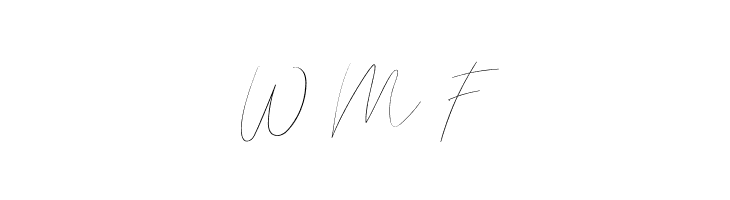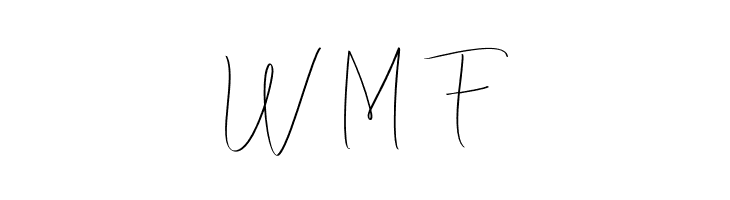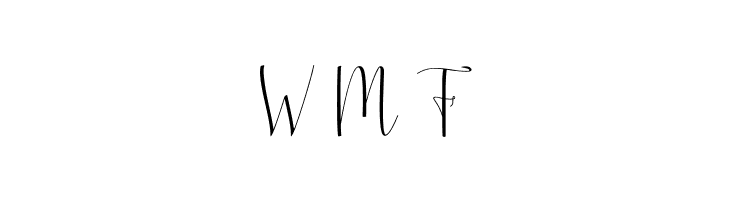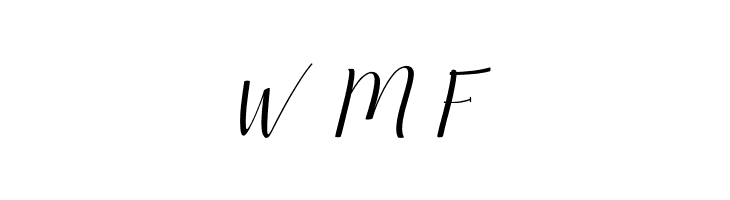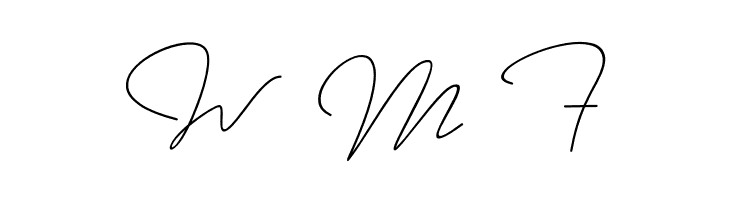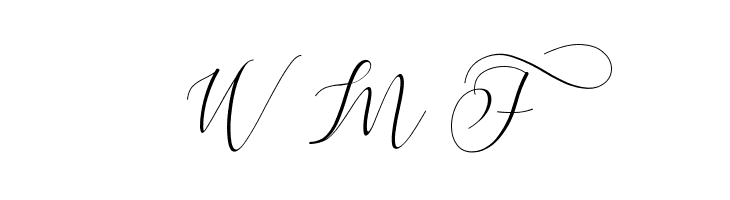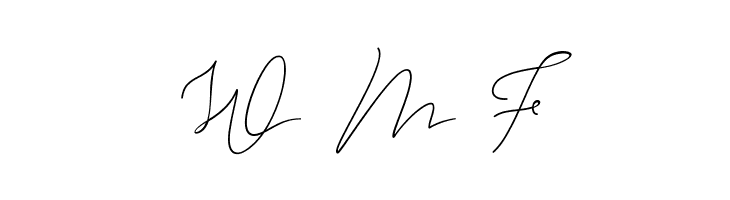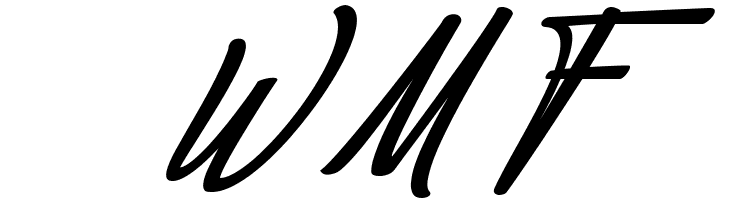
A delicate, elegant handwritten font with thin, flowing lines and graceful curves.
An elegant script font with flowing, cursive style and graceful loops.
An elegant and flowing script font with graceful curves and fluid strokes.
A graceful and flowing script font with elegant curves and loops.
An elegant, flowing script font with graceful curves and fluid strokes.
An elegant, slanted calligraphy font with graceful lines and artistic flourishes.
A graceful and elegant script font with flowing, cursive lines.
An elegant, flowing script font with graceful curves and fluid strokes.
An elegant, cursive font with fluid, graceful strokes.
A flowing, elegant cursive font with graceful loops and smooth connections.
An elegant, flowing script font with thin, elongated letterforms and graceful curves.
An elegant, flowing script font with graceful curves and sophisticated flourishes.
An elegant script font with flowing, cursive characters and graceful swashes.
An elegant, flowing script font with graceful curves and sophisticated swashes.
A sophisticated and flowing font with thin, graceful strokes and a slight slant.
A graceful script font with elegant, flowing strokes and sophisticated style.
An elegant script font with graceful, flowing lines and sophisticated style.
An elegant, flowing script font with graceful curves and loops.
An elegant, flowing script font with graceful curves and smooth strokes.
An elegant, flowing script font with a sophisticated and graceful appearance.
An elegant, flowing script font with thin strokes and graceful curves.
A graceful and elegant script font with flowing cursive letters.
A graceful script font with elegant loops and high contrast strokes.
A whimsical and elegant cursive font with flowing, graceful strokes.
A delicate and elegant font with graceful curves and a light, airy feel.
A graceful and elegant script font with flowing, interconnected letters.
( DestockCoiff - www.destockcoiff.com )
An elegant, high-contrast serif typeface with refined, graceful strokes.
( HPTypework )
An elegant script font with graceful, flowing strokes and a sophisticated style.
( Konstantine Studio - www.behance.net/konstantinestudio )
A graceful and fluid handwritten script font with elegant, flowing letters.
An elegant and fluid script font with interconnected, graceful strokes.
A graceful calligraphic font with elegant loops and fluid strokes.
A graceful script font with flowing, interconnected letters and elegant curves.
A classic, elegant calligraphic font with graceful curves and fluid motion.